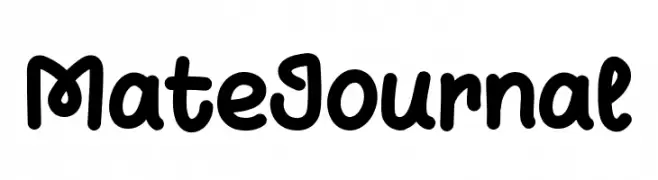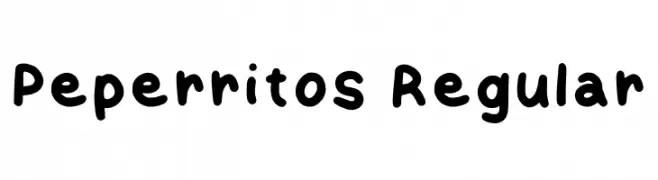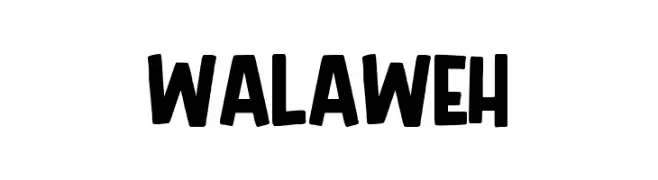
( Fonts by Namela Type )
A bold, rounded font with a playful and approachable style.
( Fonts by Khurasan™ )
A playful, rounded font with bold, smooth curves.
( Fonts by Jimtype Studio )
A casual, handwritten font with fluid, slightly slanted letterforms and a cohesive, organic feel.
( Fonts by Elena Paz Salazar )
A playful and whimsical font featuring cute and quirky decorative icons.
( Fonts by Elena Paz Salazar )
A playful, bold font with rounded, hand-drawn characters.
( Fonts by Misti's Fonts )
A playful, outlined font with a bubble-like, hand-drawn style.
( Fonts by Khurasan™ )
A playful, bold font with rounded edges and a bubbly appearance.
( Fonts by fsuarez913 )
A playful, bold font with rounded edges and a bubbly appearance.
( Fonts by Andi Moz )
A playful, bold handwritten font with a whimsical and friendly style.
( Fonts by DumadiStyle )
A bold, playful font with a hand-drawn, whimsical style.